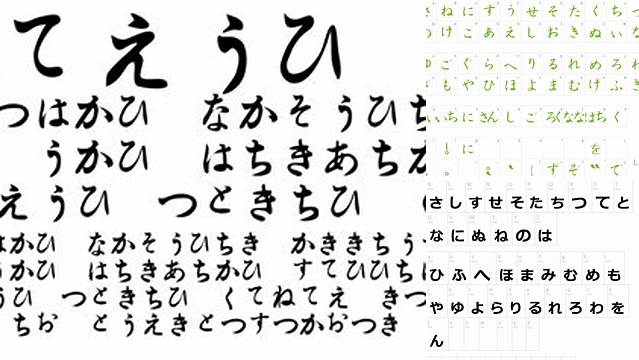
Hey guys! Are you looking to spice up your designs with some cool Hiragana fonts? You've come to the right place! Finding the perfect font can be a game-changer, whether you're working on a school project, a creative design, or just want to add a unique touch to your digital presence. In this article, we’ll dive deep into the world of Hiragana fonts, focusing on where to find them (like Dafont!), how to use them, and everything else you need to know. Let’s get started!
Hiragana Fonts on Dafont: A Quick Overview
Dafont is a treasure trove for font enthusiasts, offering a wide variety of fonts, including many that support Hiragana characters. Hiragana fonts dafont are easily accessible, and you can find everything from traditional styles to more modern and stylized designs. When searching for Hiragana fonts dafont, remember to check the character map to ensure the font includes all the Hiragana characters you need. Dafont’s user-friendly interface makes it simple to browse, preview, and download fonts for your projects. Plus, many of them are free for personal use, which is a huge bonus! But, always double-check the license before using them commercially.
Understanding Hiragana: The Basics
Before we dive deeper into fonts, let's quickly recap what Hiragana is. Hiragana is one of the three main Japanese writing systems, along with Katakana and Kanji. It's a phonetic script, meaning each character represents a specific sound. Hiragana fonts dafont need to accurately represent these characters to be useful and legible. Understanding the basics of Hiragana can help you appreciate the nuances of different fonts and choose the ones that best fit your needs. Learning Hiragana might seem daunting, but it’s a crucial step in understanding and using Japanese fonts effectively.
Using Hiragana Fonts in Design Projects
Now for the fun part – using your new Hiragana fonts in design projects! Whether you're creating a logo, designing a website, or making social media graphics, a well-chosen Hiragana font can add a unique and authentic touch. When using Hiragana fonts dafont, make sure the font is legible and fits the overall style of your project. Experiment with different sizes, colors, and spacing to find the perfect look. Also, consider the cultural context and ensure the font doesn't clash with the message you're trying to convey.
Hiragana Fonts for Different Platforms
It's essential to ensure that the Hiragana fonts you choose are compatible with the platforms you're using. Most modern operating systems and design software support a wide range of fonts, but it's always a good idea to test them out. For web design, using web fonts ensures that your Hiragana text displays correctly on different browsers and devices. Services like Google Fonts offer a selection of Hiragana fonts that are optimized for web use. When selecting Hiragana fonts dafont for digital projects, consider cross-platform compatibility.
Exploring Different Styles of Hiragana Fonts
Just like with any language, Hiragana fonts come in various styles. There are traditional, calligraphic styles that evoke a sense of history and elegance, and there are modern, sans-serif styles that are clean and contemporary. Some fonts even incorporate playful or whimsical elements. Exploring these different styles can help you find the perfect Hiragana fonts dafont to match the tone and aesthetic of your project. Don't be afraid to experiment and try out different options to see what works best!
Creating Your Own Hiragana Fonts
If you're feeling ambitious, why not try creating your own Hiragana fonts? There are many font design software options available, ranging from free and open-source tools to professional-grade applications. Creating your own font can be a challenging but rewarding experience. It allows you to express your creativity and create a truly unique typeface. Plus, you'll gain a deeper appreciation for the art of typography. While it might take time to master the craft, designing Hiragana fonts dafont can be a fun and fulfilling project.
Hiragana Fonts and Calligraphy
Calligraphy and Hiragana fonts go hand in hand. Many Hiragana fonts are designed to emulate the look and feel of traditional Japanese calligraphy. These fonts often feature flowing lines, brush-like strokes, and a sense of dynamism. Using calligraphic Hiragana fonts dafont can add a touch of elegance and authenticity to your designs. If you're interested in calligraphy, exploring these fonts can be a great way to learn more about the art form and incorporate it into your work.
The Importance of Legibility in Hiragana Fonts
While aesthetics are important, legibility should always be a top priority when choosing Hiragana fonts. A beautiful font is useless if it's difficult to read. Make sure the characters are clear and well-defined, and that the spacing is appropriate. When using Hiragana fonts dafont, test them out in different sizes and contexts to ensure they remain legible. Consider the target audience and the purpose of the text when evaluating legibility. After all, the goal is to communicate effectively, and a legible font is essential for achieving that.
Hiragana Fonts: A Conclusion